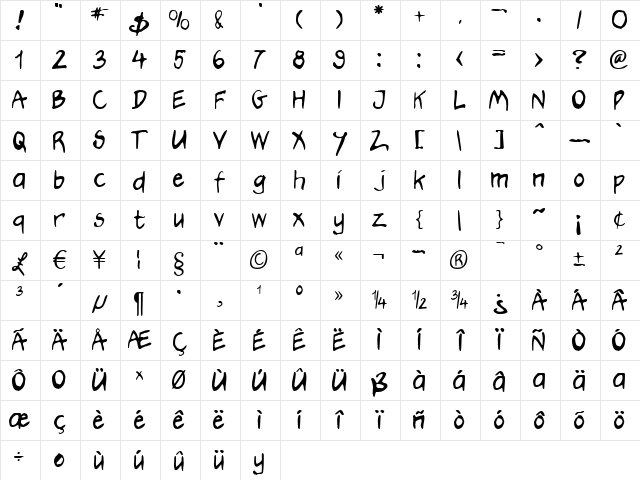
Hooteroll_Jam Regular
Design Context for Hooteroll_Jam
Hooteroll_Jam is a composed and adaptable typeface that performs quietly and consistently across a wide range of design contexts.
Pro Tip: Use Hooteroll_Jam in both headline and body roles to test its range before committing to a single application.